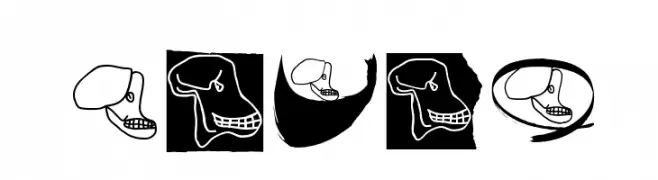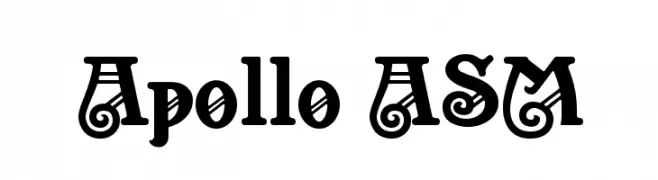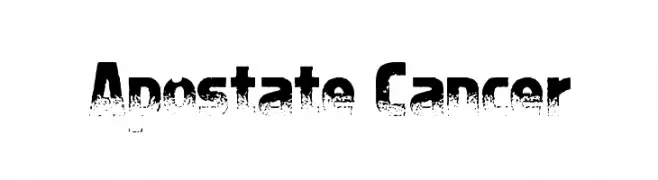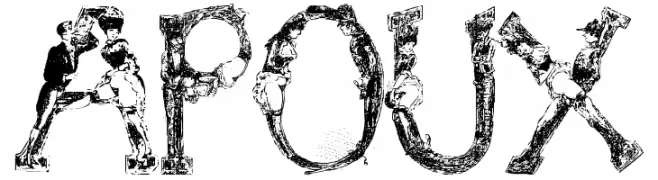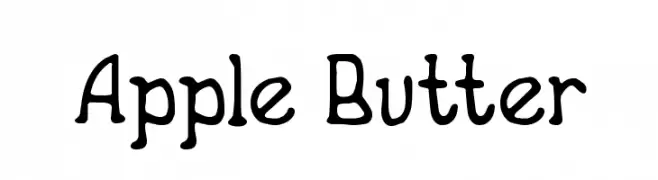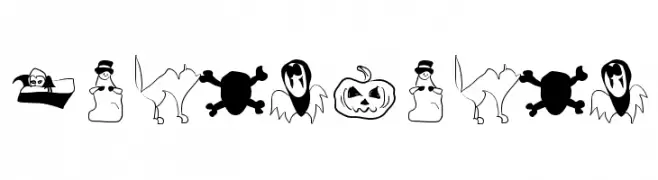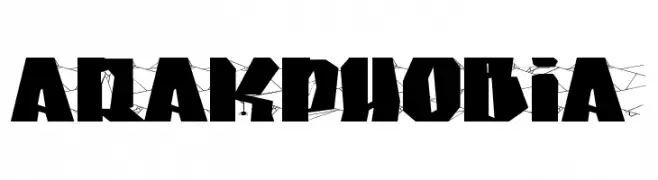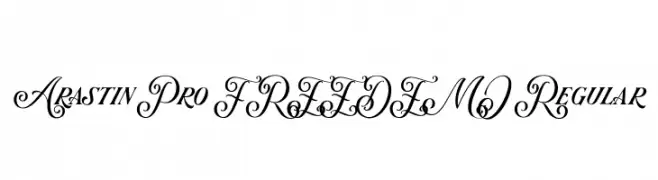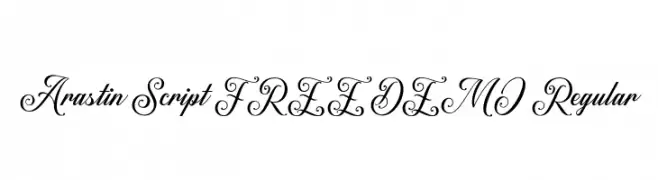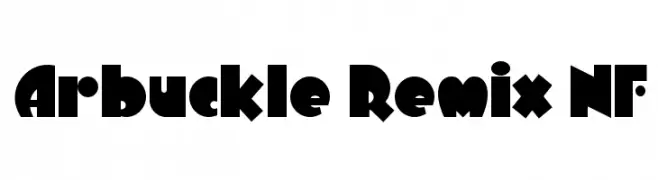
Ornate, owl-themed pictorial glyph set.
A display font composed of detailed owl illustrations for each character.
A decorative font composed of owl illustrations for each character.
A bold, modern font with sharp angles and smooth curves.
A decorative font with illustrations depicting apartment life elements.
A whimsical and bold font featuring cartoonish skull illustrations.
A whimsical and artistic display font with unique illustrated characters.
A bold, decorative font with intricate swirls and flourishes.
A decorative and ornate font with intricate swirls and embellishments.
A bold, decorative font with intricate swirls and embellishments.
A bold, distressed font with a grunge aesthetic and textured appearance.
A whimsical, hand-drawn font with tall, narrow characters and a playful style.
An artistic and elegant font with decorative flourishes and a blend of classic and modern styles.
A rugged, textured font with a natural, distressed appearance.
A playful and bold script font with a hand-drawn, decorative style.
A playful, apple-shaped decorative font with bold, rounded characters.
A playful, hand-drawn font with irregular, wavy strokes and a whimsical style.
A whimsical Halloween-themed decorative font with playful illustrations.
A bold, hand-drawn font with textured, sketch-like characters.
A clean, modern sans-serif font with uniform stroke width and excellent legibility.
An ornate and decorative font with intricate swirls and flourishes.
A decorative, angular font with a gothic, spider web-inspired design.
A bold, web-textured font with sharp angles and thick strokes, perfect for dramatic designs.
A versatile font combining elegant script with bold serif styles.
An elegant script font with flowing, cursive strokes and decorative swashes.
A bold, elegant serif font with high contrast and sharp serifs.
A bold, geometric font with inline detailing for a striking visual impact.
A bold, geometric font with retro and art deco influences.
A bold, inline font with geometric and playful characteristics.
A bold, geometric font with playful and dynamic character designs.
A pixelated font inspired by retro arcade games, featuring blocky, grid-like characters.
Hand-drawn archaeological illustrations form each character in a decorative display style.
A complex, architectural-themed font with blueprint-like details and geometric shapes.
A bold, three-dimensional font with architectural and geometric influences.